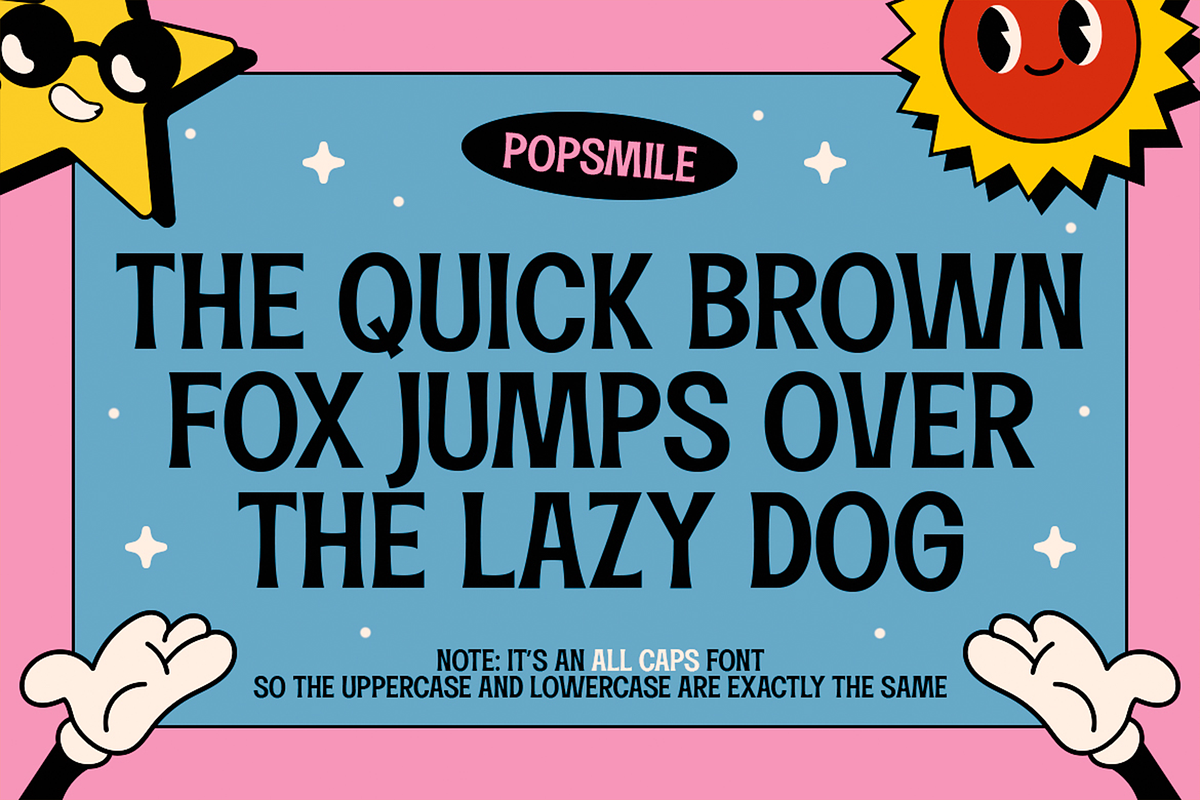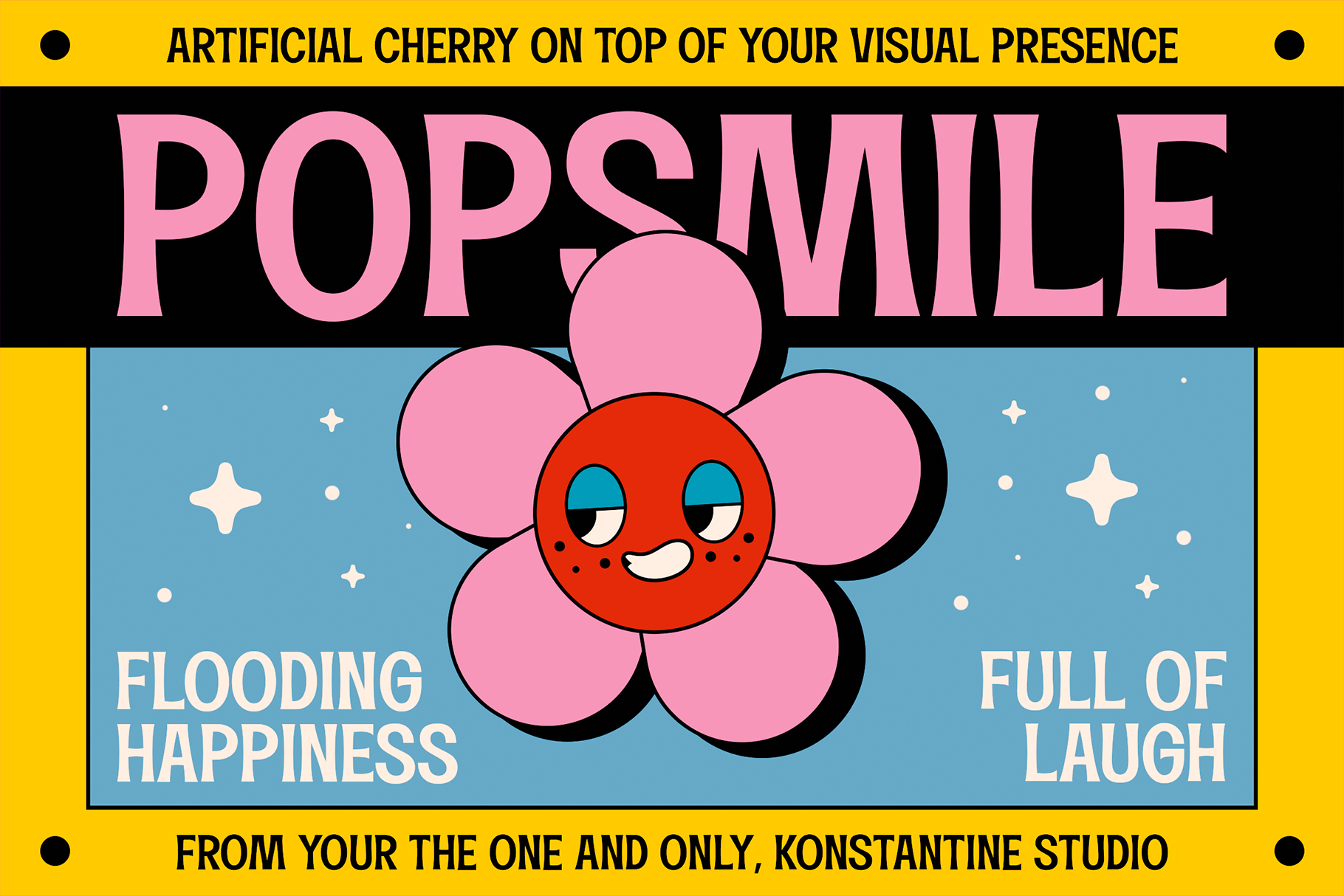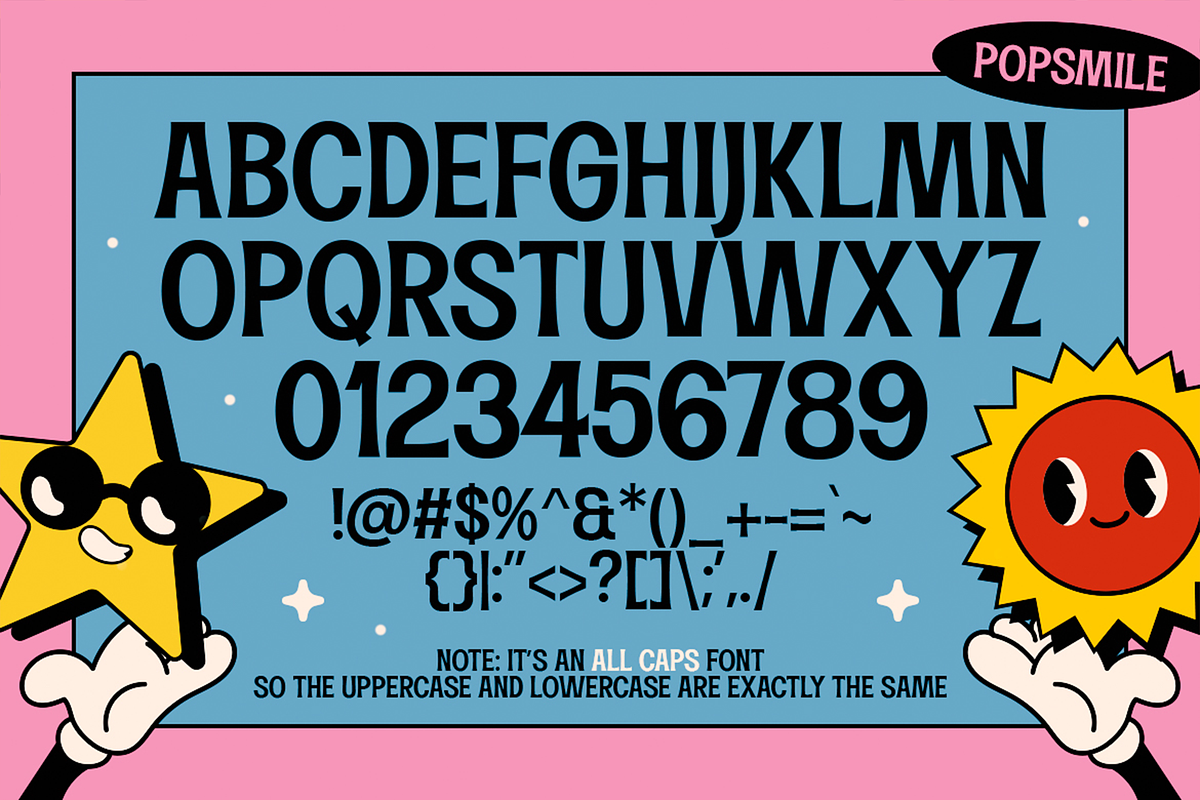
Popsmile - Retro Pop Fonts
Step back in time with Popsmile, inspired by the vibrant retro pop culture of the 70s and 80s! This playful font captures the essence of classic packaging, posters, signs, advertising, and nostalgic toys.
Perfect for adding a vintage flair to your graphic designs, Popsmile is the ideal choice for anyone looking to evoke those timeless retro vibes. Unleash your creativity and let Popsmile bring your designs to life!